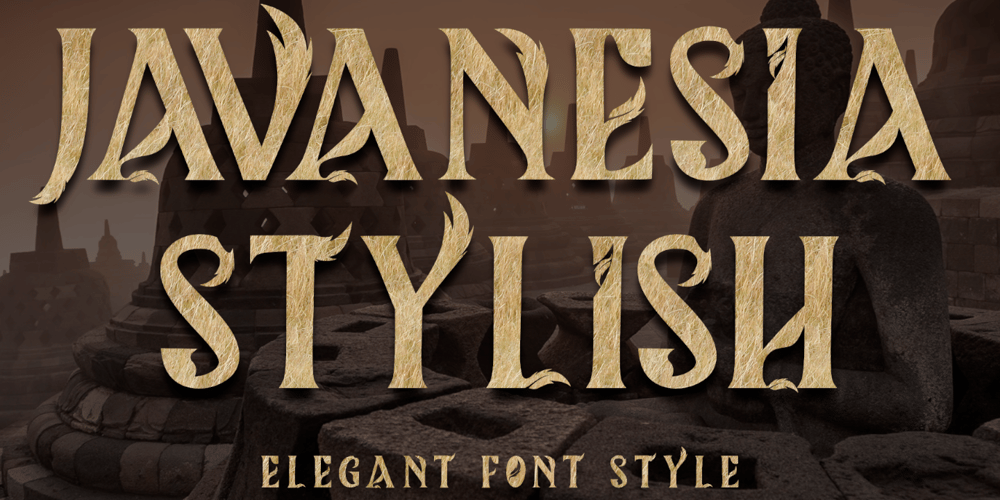
Javanesia Stylish Font Family was designed by Isroni Yoga Prasetya and published by Yoga Letter. Javanesia Stylish contains 1 styles and family package options. “Javanesia Stylish” is a very professional and elegant blackletter font. This font comes with capital letters, lowercase letters, numbers, punctuation and multilingual support. It is perfect for posters, banners, branding, business branding, holidays, printing, movies, festivals, and more.